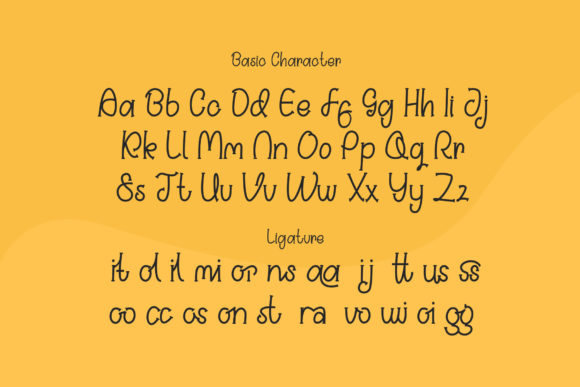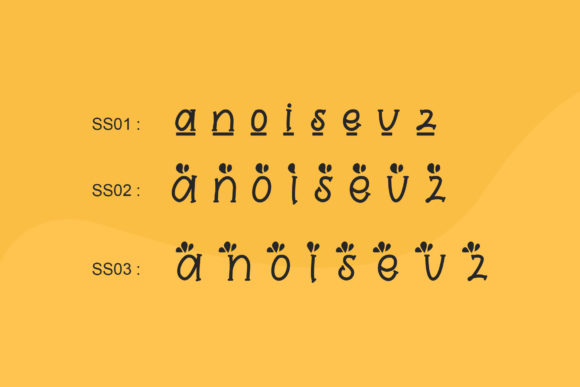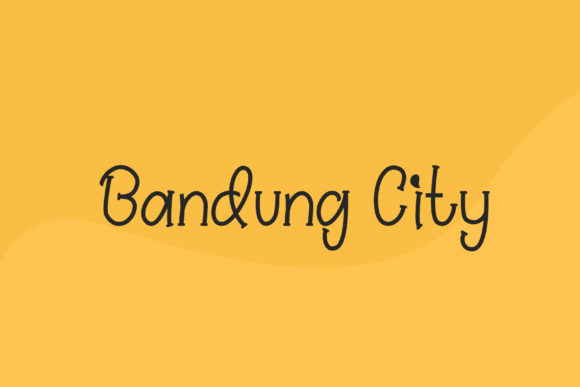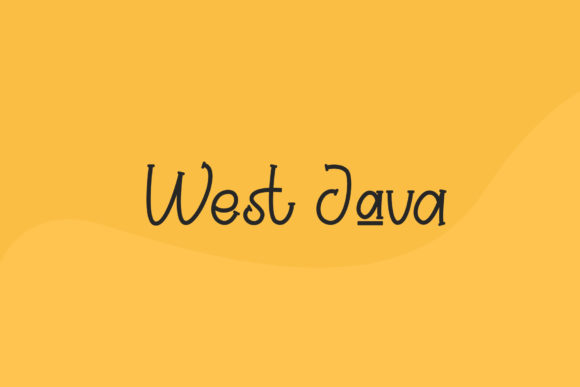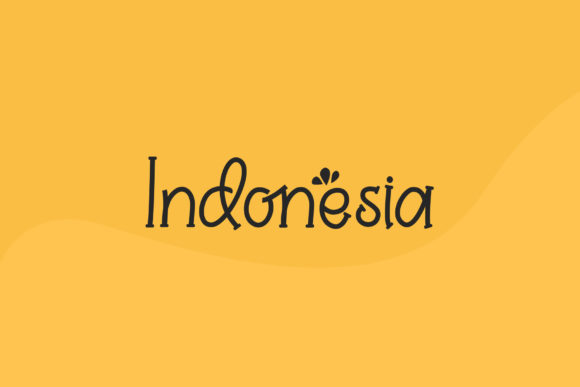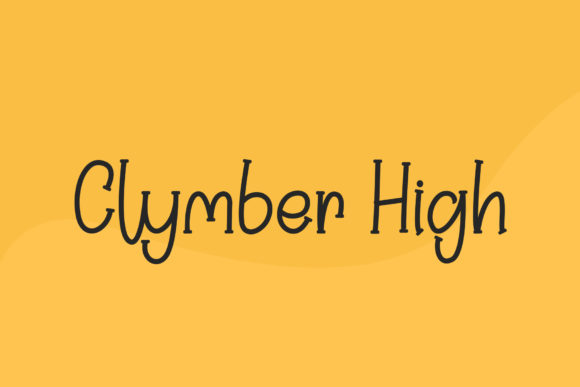
The Clymber Font: A Cute and Quirky Display Font to Elevate Your Designs
I’ll never forget the time I was working on a project for a children’s birthday party, and I just couldn’t find the right font to match the playful vibe of the design. The client wanted something fun, friendly, and eye-catching, but everything I tried seemed either too boring or too over-the-top. That’s when I stumbled upon the Clymber font, and it instantly brightened up my design (and my day!). In this article, I’ll share my experience with Clymber, its features, and how to make the most of it in your designs.
An Honest Review of Clymber Font
What I Love About Clymber ✨
- ✅ Cute and Friendly: Clymber has a charming, approachable feel that’s perfect for designs that need a playful touch.
- ✅ Neat and Legible: Despite its whimsical nature, Clymber remains surprisingly legible, even at smaller sizes.
- ✅ Versatile: This font works beautifully for titles, headings, and short paragraphs, making it a great addition to any design project.
- ⚠️ Limited Use in Body Text: While Clymber is amazing for display purposes, it might not be the best choice for longer body text due to its playful nature.
- ⚠️ Some Letters May Appear Similar: At smaller sizes or in certain contexts, some letters might appear similar, which could affect readability.
One of the exciting aspects of Clymber is its support for OpenType features and glyphs. These features allow you to add variety and personality to your text, making your designs stand out. Some common features you might find in Clymber include:
- Ligatures: Combine certain letter pairs for a more artistic look.
- Stylistic Alternates: Swap out letters for alternate versions with a different look.
- Glyphs: Access special characters and symbols to enhance your design.
The Backstory of Clymber Font
Clymber was designed with the intention of creating a font that’s both fun and functional. Inspired by the whimsy of children’s books and the playfulness of digital media, Clymber aims to bring a smile to the user’s face. Whether you’re designing for kids or just want to add some personality to your project, Clymber is the perfect choice.
| Font Name | Clymber Font |
| Author | Dysa Custom |
Q: What makes Clymber font unique?
A: Clymber’s uniqueness lies in its blend of cuteness, friendliness, and neatness, making it an excellent choice for display purposes.
Q: Is Clymber suitable for body text?
A: While Clymber is amazing for display text, it might not be the best choice for longer body text due to its playful nature.